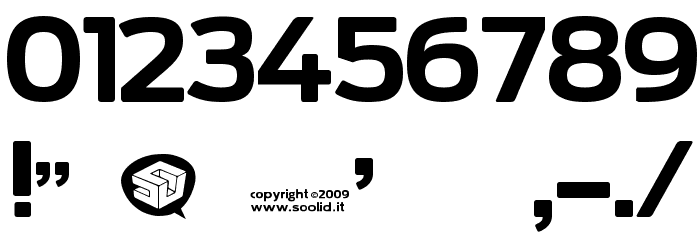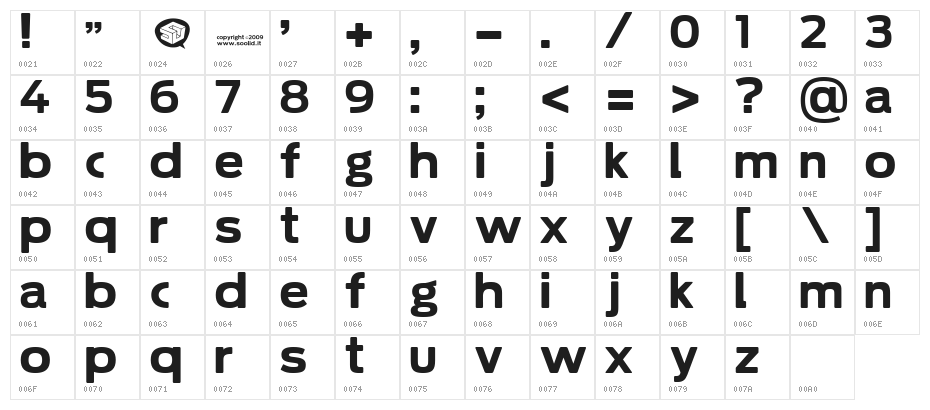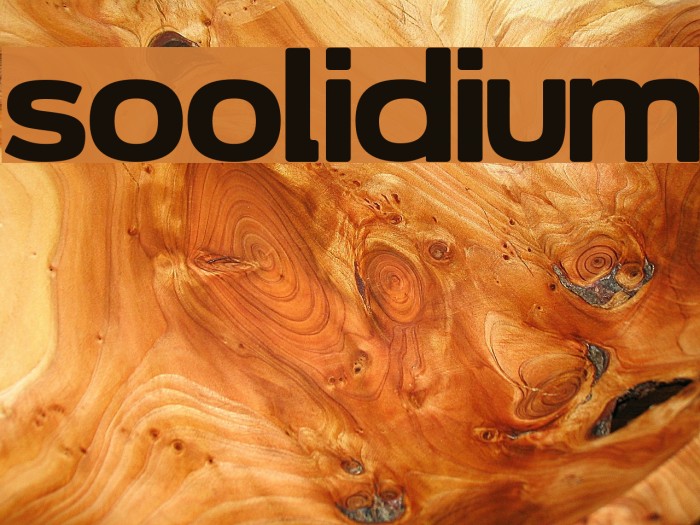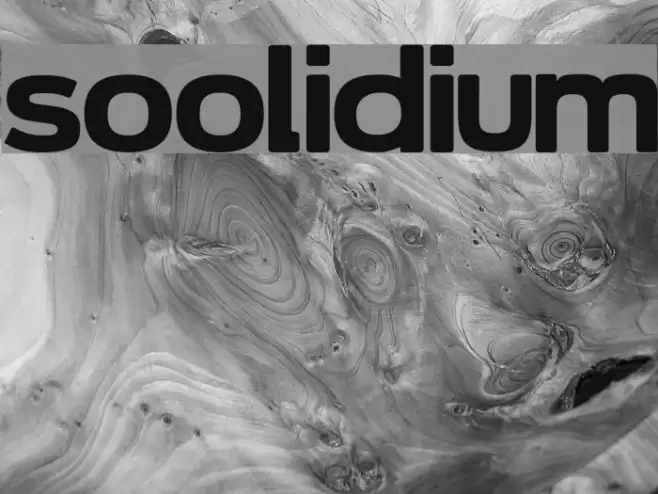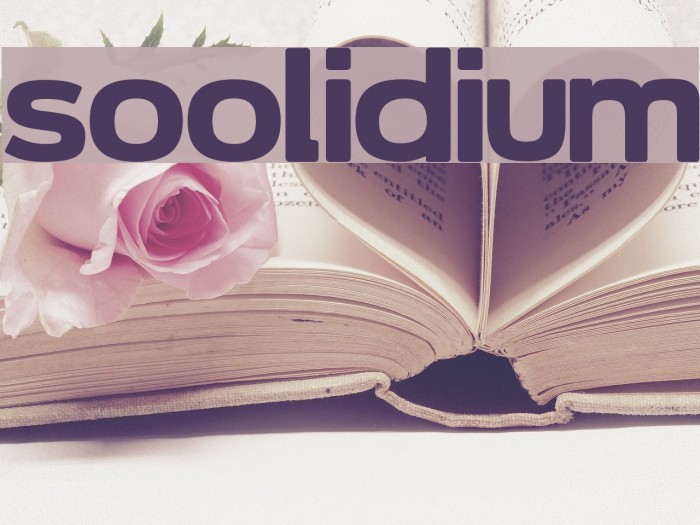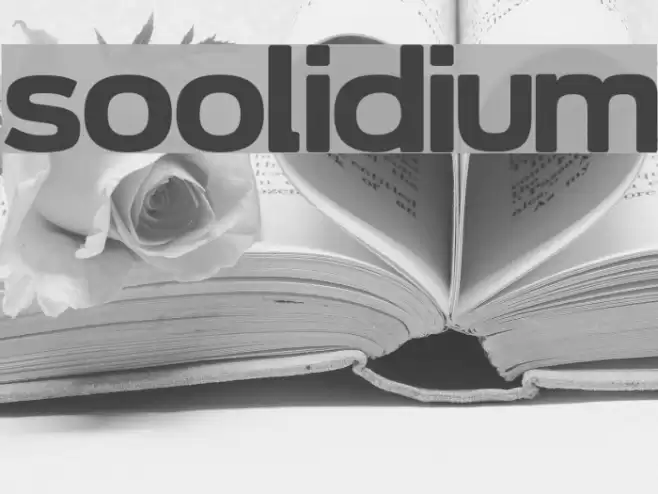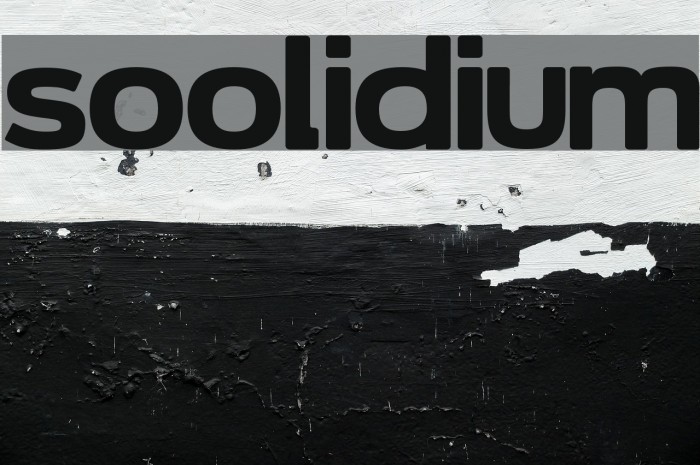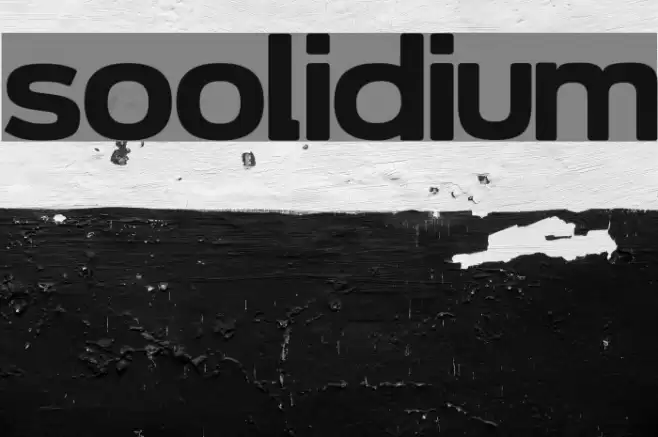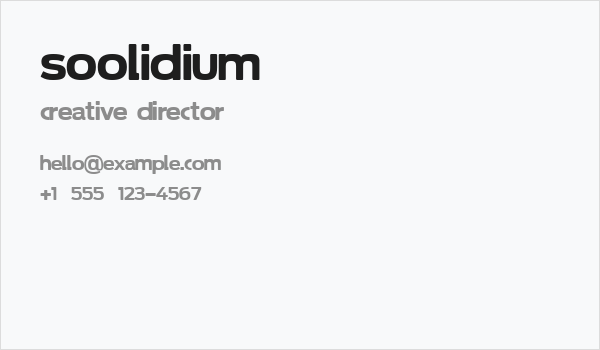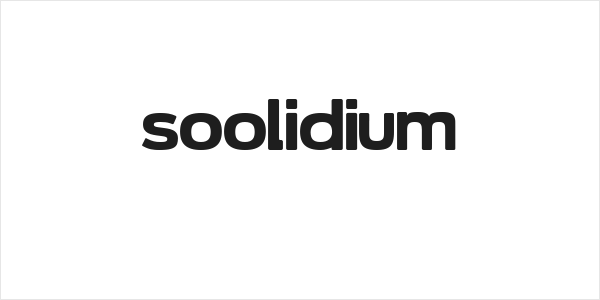
Soolidium Font
Soolidium Description
This font exhibits a bold and modern sans-serif style with a strong geometric influence. The characters are well-balanced with a consistent stroke width, giving it a clean and contemporary appearance. The rounded edges of the letters add a touch of softness, while maintaining a robust and solid structure. The font is highly legible, making it suitable for various design applications. Its uniformity and simplicity make it versatile, yet its boldness ensures it stands out in any context. The numbers and special characters are designed to match the overall aesthetic, providing a cohesive look across all elements.
| Proposed Projects | Ideal for branding, headlines, posters, and digital media where a strong, modern presence is desired. |